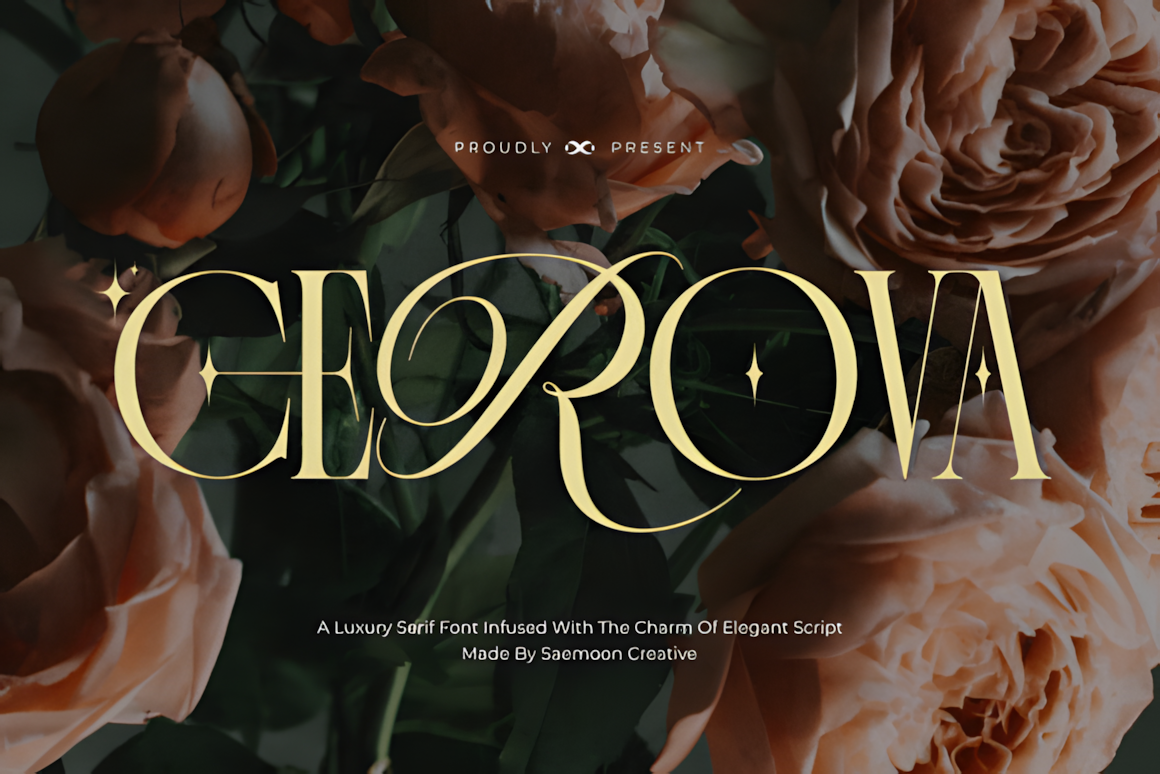
In an era where every detail counts, the right typeface can transform a project from ordinary to unforgettable. Below, you’ll find ten carefully selected fonts that pair distinctive style with reliable performance — each accompanied by actionable advice to help your designs stand out.
Cerova
A refined serif with flowing swashes and full-script capital alternates, Cerova brings high-fashion sensibility to any headline.
Practical tip: Pair Cerova’s ornate initials with a minimalist sans-serif for product packaging that reads as both upscale and modern.
Aura
Rounded terminals and oversized ligatures give Aura a fresh, contemporary feel without sacrificing legibility.
Practical tip: Apply Aura at 72 pt for magazine cover titles, then drop to 24 pt for pull quotes to preserve visual hierarchy.
Milky
With its chunky strokes and soft curves, Milky conveys approachability while maintaining strong display presence.
Practical tip: Use Milky for Instagram Story overlays on product photography to infuse warmth and brand personality.
Dave Moris
Dave Moris is an elegant serif that marries high-contrast strokes with sweeping, calligraphic terminals — its dramatic ligatures and unexpected curves lend headlines a couture-inspired flair.
Practical tip: Use Dave Moris in all-caps for luxury fashion lookbooks or editorial spreads: its bold verticals and fluid swashes create a striking focal point without additional ornamentation.
Virlone
An elegant serif distinguished by unique ligatures and alternates, Virlone bridges classic proportions and modern nuance.
Practical tip: Leverage Virlone’s alternates for bespoke mastheads in luxury lifestyle magazines.
Molevin
A minimalist decorative serif in a slender weight, Molevin excels at conveying understated refinement.
Practical tip: Print Molevin Light on textured, heavyweight paper for wedding invitations that emphasize tactile quality.
Acollia
Acollia is a high-contrast serif with graceful curves and elegant ligatures, ideal for creating a refined and modern look.
Practical tip: Use it in logos or magazine titles to add a touch of sophistication with artistic flair.
Chrome
Chrome is a bold all-caps serif with sharp lines, sleek curves, and striking ligatures that bring a sense of drama and luxury.
Practical tip: Ideal for fashion headlines, logos, or high-end packaging where elegance meets impact.
Agitafe
Bold curves meet sharp terminals in this Art Deco-inspired display face, ideal for dramatic headlines.
Practical tip: Apply Agitafe to cocktail menu headings in upscale bars to evoke 1920s glamour and sophistication.
Mafter
Mafter is a high-fashion display serif with dramatic contrast, teardrop-inspired curves, and stylized letterforms that blend modern elegance with artistic flair. Its tall stems and sculptural details make it ideal for visual identities that need to feel exclusive and refined.
Practical tip: Perfect for luxury lookbooks, fashion editorials, or packaging that demands a bold yet graceful typographic presence.
Each of these fonts brings its own character, but they all share one thing in common — an ability to instantly elevate design with a sense of elegance, style, and confidence.
The right typeface doesn’t just decorate a layout; it defines its tone, sharpens its message, and sets the entire visual mood. Let your typography do more than communicate — let it leave an impression.